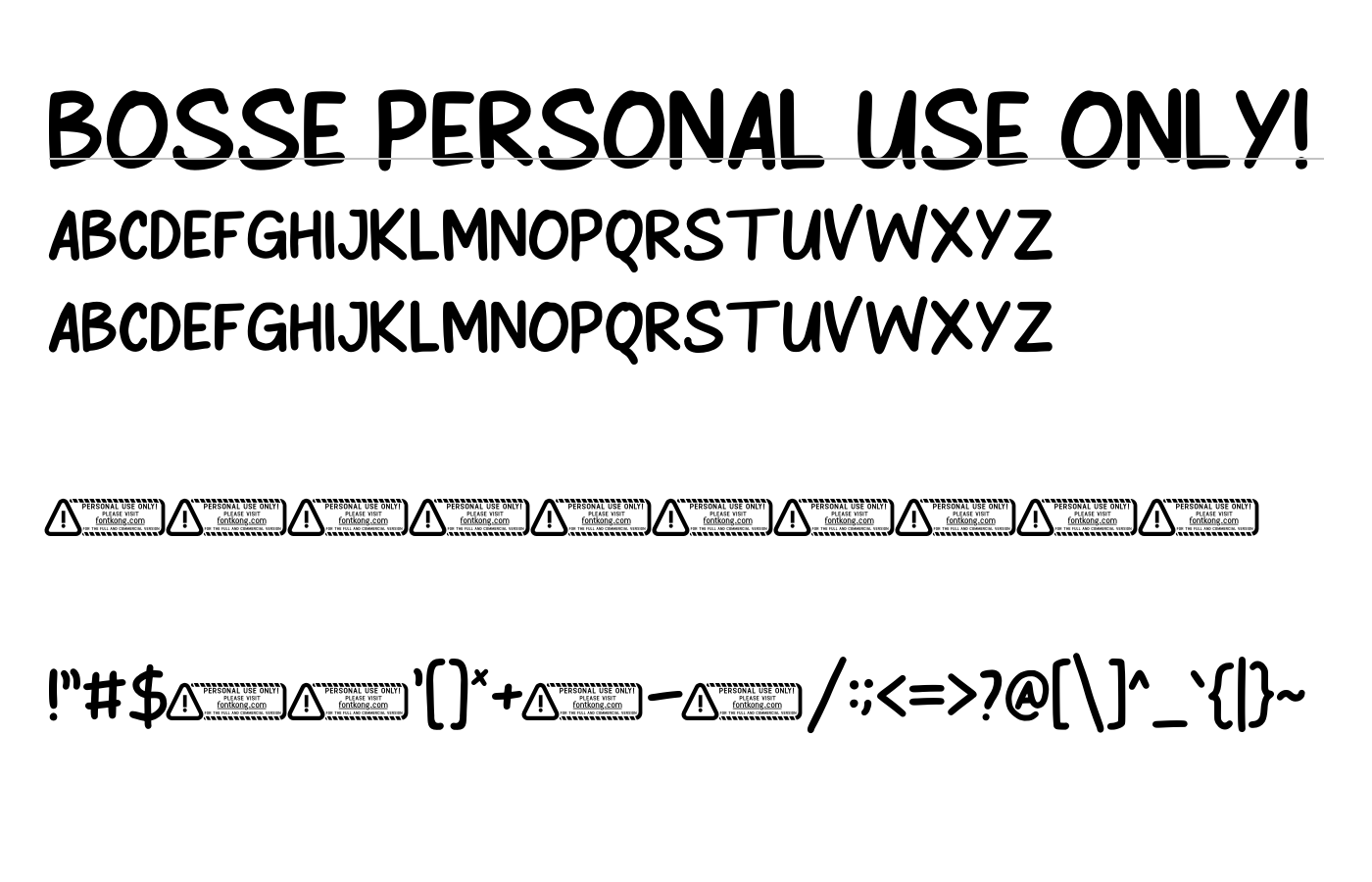
Bosse is a playful, informal sans serif font with a casual handwritten feel, featuring rounded edges and uniform stroke weight that gives it a friendly and approachable look. Its slightly condensed letterforms and moderate x-height make it versatile for fun, lighthearted designs like posters, children’s books, or casual branding. This font works best in headlines or short texts where a cheerful, personal touch is desired.
Bosse PERSONAL USE ONLY! Font
About Bosse PERSONAL USE ONLY! Font